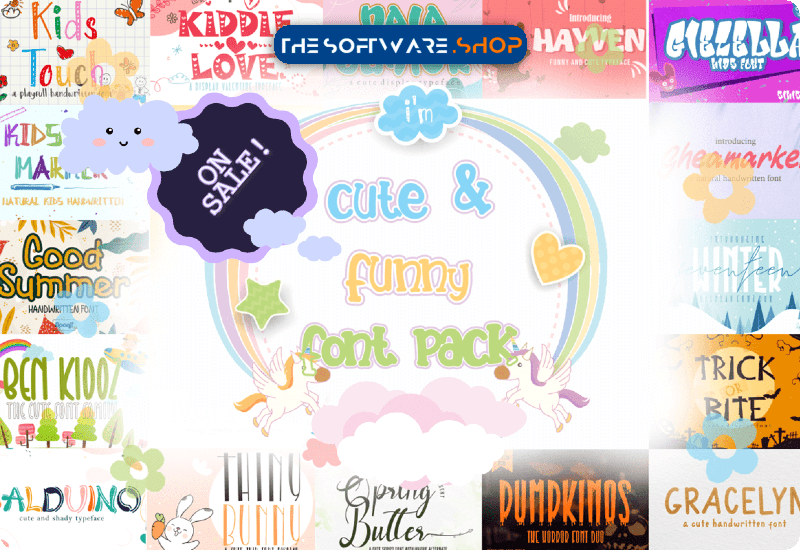
The Cute and Funny Font Pack includes a range of script, display, and decorative fonts that are perfect for logos, branding, invitations, pantry labels, greeting cards, posters, book covers, and much more. Most of these fonts are PUA encoded, which means that you can easily access all of the special characters and use them in your designs.
The fonts included in the “Cute and Funny Font Pack” are created by sipanji figuree, a talented font designer. Each font has its own unique personality and style, ranging from playful and cute to bold and quirky. Some of the standout fonts in this collection include the Kids Touch Display Font, Cyberwar Display Font, and Dr. Bones Font Decorativi.
- Foolish Hand Scrip Font
- Kids Touch Display Font
- Boldist Display Font
- Cyberwar Display Font
- Kiddie Love Display Font
- Snow Fox Display
- Spring Butter Script & Handwritten Font
- Bat Liar Display-Font
- Wolvins Display Font
- Cute Lime Display Font
- Vampire Bloods Decorative Font
- The Veruzza Display Font
- Ben Kidoz Display Font
- Giecella Kids Display Font
- Dr. Bones Decorativi
- Ashura Display Font
- Zoya Script & Handwritten Font
- Gheamarker Script & Handwritten Font
- Nala Junior Display Font
- Pumpkinos Display Font
- Good Summer Script Font
- Happy Dinosaur Display Font
- Kids Gen Marker Display Font
- Hayven Display Font
- Seventeen Winter Display Font
- Wofferine Cursive Font
- Zhivanii Sans Serif Font
- Rocketboss Display Font
- Snow Bunny Display Font
- Veruzza Italic Serif Font
- Thiny Bunny Display Font
- Balduino Display Font
- Kaindra Display Font
- Digital Space Sans Serif Font
- Swadi Marker Display Font
- Straightwell Slab Serif Font
- Molusca Display
- Los Porttal Script & Handwritten Font
- Dashtin Brush Display Font
- Break Flames Display Font
- Sword Art Display Font
- Veruzza Hollow Display Font
- Baby Magpies Displan Font
- Dance Kitty Display Font
- Gracelyn Script & Handwritten Font
- SpaceBro Display Font
- Trick or Bite Display Font